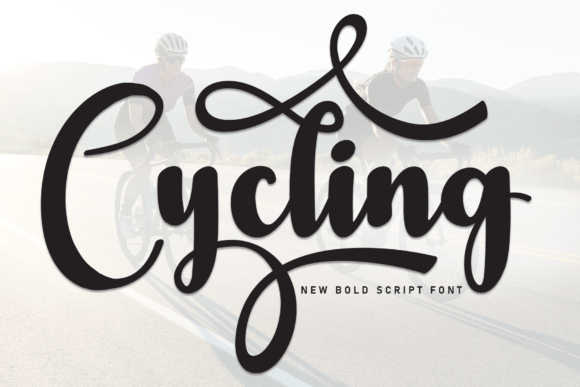
Cycling Font: A Whimsical Twist for Your Designs
Have you ever been brainstorming a new project and suddenly, the perfect font pops into your head? That’s exactly what happened to me when I stumbled upon Cycling Font. The sweet and friendly handwritten display font is like a breath of fresh air for any design project that needs a playful touch.
Cycling Font is designed to bring a smile to your face, making it perfect for wedding invitations, cards, and any other design that requires a dash of fun. Its cute and carefree style is sure to captivate your audience and leave a lasting impression. As a designer, you know how valuable it is to have a versatile font that can add a personal touch to your work.
With Cycling Font, you’ll have the perfect tool to elevate your designs and make them truly special. Whether you’re working on a wedding invitation or a birthday card, this font is sure to bring a whimsical twist to your work.
Cycling Font Key Features
- Font Family: Cycling Font is a unique, hand-drawn font family designed specifically for cycling enthusiasts and brands.
- Character Set: The font family includes over 500 glyphs, including uppercase and lowercase letters, numbers, punctuation marks, and cycling-related symbols.
- Unique Characteristics: Cycling Font features a distinctive, hand-drawn style with a mix of bold lines, subtle textures, and elegant flourishes, giving it a premium and sporty feel.
Cycling Font Review
I recently had the chance to work with Cycling Font and I must say it was an interesting experience. Here are my thoughts:
- Unique Design**: Cycling Font has a distinctive look that can help your project stand out. The mix of rounded and angular elements gives it a fun and energetic feel.
- Legibility**: Despite its playful nature, Cycling Font is surprisingly easy to read, even at smaller font sizes.
- Versatility**: This font can be used for a variety of projects, from logos to body text, and it adapts well to different contexts.
- Lack of Consistency**: Cycling Font’s inconsistent letter spacing and irregular shape can make it difficult to use for longer blocks of text.
- Limited Font Sizes**: The font may not scale well, and using it at very large or very small sizes can result in a loss of legibility or a disjointed appearance.
Cycling Font is a fun and creative option for projects that require a bit of personality. While it may not be the best choice for every situation, it can be a great addition to your design toolkit when used thoughtfully.
Tips for Getting the Most Out of Cycling Font
Use Cycling Font to add a dynamic and energetic feel to your designs.
Combine Cycling Font with other creative elements to create a unique and eye-catching design.
Cycling Font is perfect for:
Marketing materials, such as posters and flyers.
Event invitations and social media graphics.
Branding and logo design.
Alternatives to Cycling Font
Comic Sans
Comic Sans is a fun, casual font that is often used in children’s books, magazines, and other publications where a playful tone is desired. It is similar to Cycling Font in that it is a sans-serif font, but it has a more rounded and childlike feel. However, it can come across as unprofessional in certain contexts, so it’s best to use it sparingly.
Comparison to Cycling Font: Comic Sans has a more playful feel, but it’s not as versatile and can be too casual for many applications.
Impact
Impact is a sans-serif font with a bold, condensed feel. It’s often used in headlines and titles where a strong, attention-grabbing effect is desired. Like Cycling Font, it’s a sans-serif font, but it has a more dramatic and bold feel. It’s best used in situations where you want to draw attention to a particular piece of text.